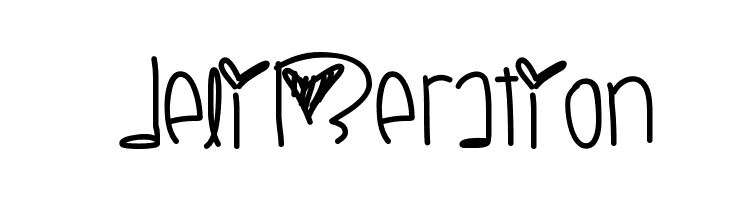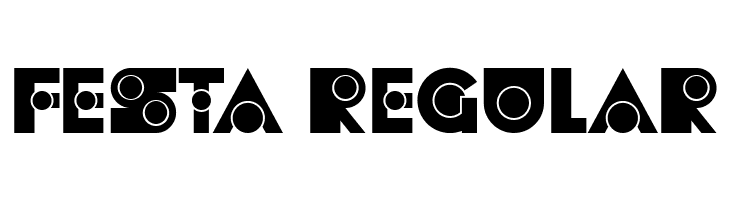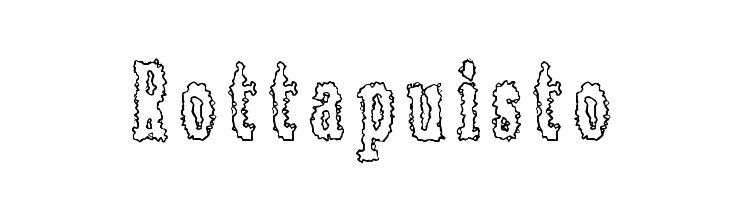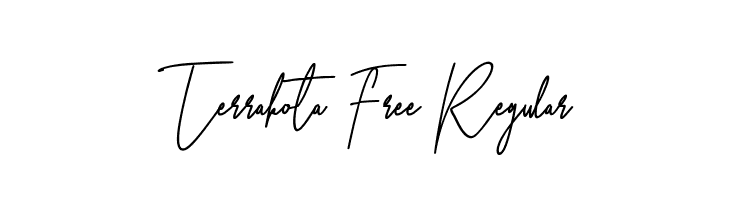
A playful, hand-drawn decorative font with irregular, textured outlines.
A decorative and artistic font with intricate swirls and flourishes.
A bold, 3D italic font with a futuristic and dynamic style.
A bold, artistic font with circular elements and dynamic strokes.
A geometric, angular font with a futuristic and minimalistic design.
Elegant handwritten script font.
A bold, playful, hand-drawn font with rounded edges and a whimsical style.
A bold, italic font with a dynamic and modern style, featuring sharp angles and strong geometric forms.
A bold, geometric font with a modern, industrial style.